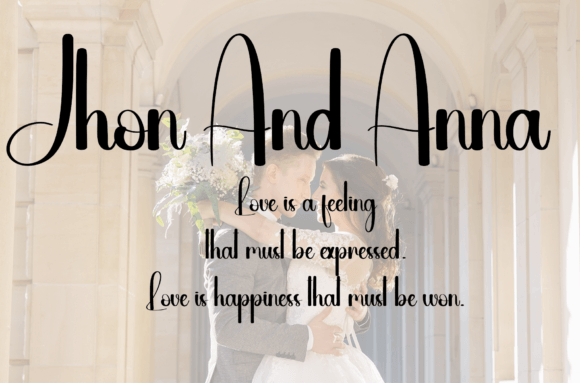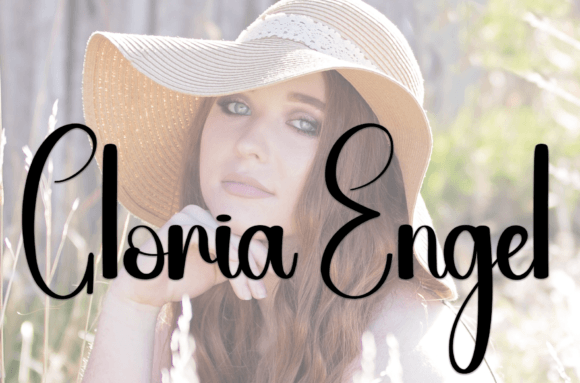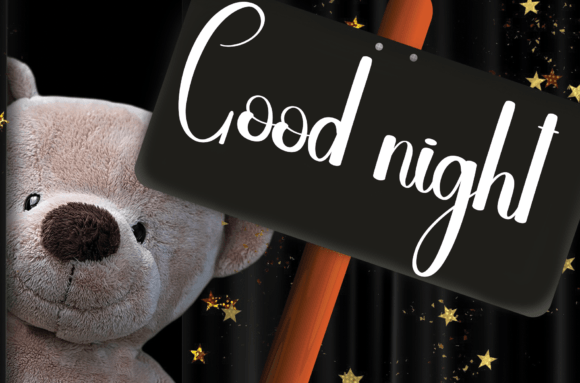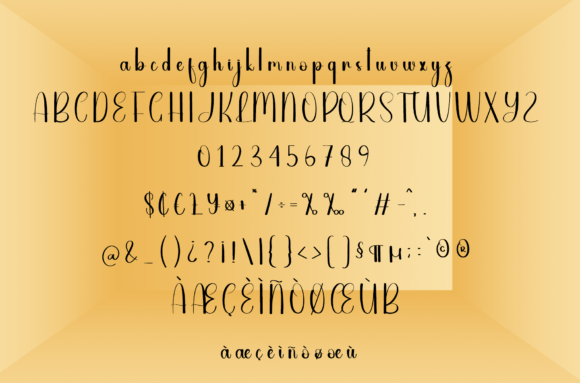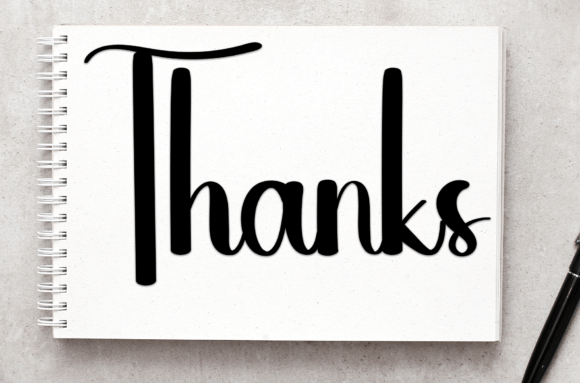
Introducing Handline Font: The Sweet and Friendly Handwritten Font for Your Creative Projects
Are you a designer or crafter looking for a font that can add a personal touch to your work? Look no further than Handline Font, a sweet and friendly handwritten font that’s perfect for creating unique and eye-catching designs. In this article, we’ll explore the features and benefits of Handline Font, and show you how it can be used to take your creative projects to the next level.
What is Handline Font?
Handline Font is a beautiful, handwritten font that’s designed to bring a touch of warmth and personality to your designs. With its creative and cute style, this font is ideal for writing wedding invitations, cards, or any other design that might need a fun touch. Whether you’re a professional designer or a crafty DIY enthusiast, Handline Font is the perfect choice for anyone looking to add a little extra something special to their work.
Key Features of Handline Font
So what makes Handline Font so special? Here are just a few of its key features:
- Sweet and Friendly Style: Handline Font has a warm and inviting style that’s perfect for creating designs that are friendly and approachable.
- Handwritten Look: With its handwritten look and feel, Handline Font is perfect for adding a personal touch to your designs.
- Cute and Creative: This font is ideal for designers and crafters who want to add a fun and creative touch to their work.
- Perfect for Wedding Invitations and Cards: Handline Font is a popular choice for wedding invitations, cards, and other special occasion designs.
How to Use Handline Font in Your Designs
Handline Font is easy to use and can be incorporated into a wide range of design projects. Here are a few ideas to get you started:
- Wedding Invitations: Use Handline Font to create beautiful and unique wedding invitations that set the tone for your special day.
- Greeting Cards: Add a personal touch to your greeting cards with Handline Font, perfect for birthdays, holidays, and other special occasions.
- DIY Crafts: Use Handline Font to add a creative touch to your DIY crafts, such as scrapbooking, journaling, and more.
- Digital Designs: Handline Font can also be used in digital designs, such as social media graphics, blog posts, and more.
Benefits of Using Handline Font
So why should you choose Handline Font for your design projects? Here are just a few benefits:
- Unique and Eye-Catching: Handline Font is a unique and eye-catching font that will help your designs stand out from the crowd.
- Easy to Read: Despite its handwritten style, Handline Font is easy to read and understand, making it perfect for designs that need to communicate a message.
- Versatile: Handline Font can be used in a wide range of design projects, from wedding invitations to digital designs.
- Time-Saving: With Handline Font, you can create beautiful designs in no time, saving you time and effort.
In conclusion, Handline Font is a sweet and friendly handwritten font that’s perfect for designers and crafters who want to add a personal touch to their work. With its creative and cute style, this font is ideal for writing wedding invitations, cards, or any other design that might need a fun touch. Whether you’re a professional designer or a crafty DIY enthusiast, Handline Font is a great choice for anyone looking to create unique and eye-catching designs.